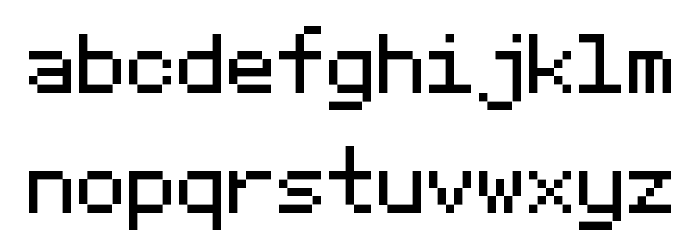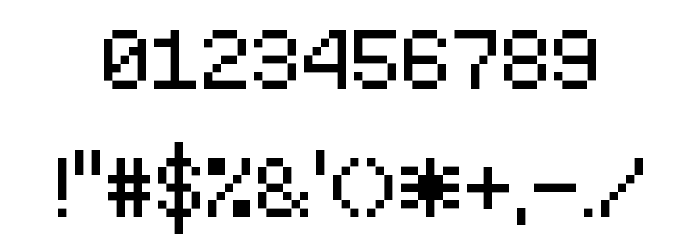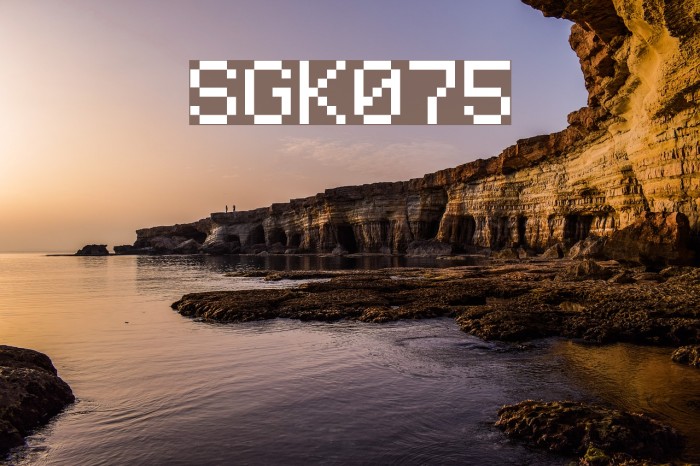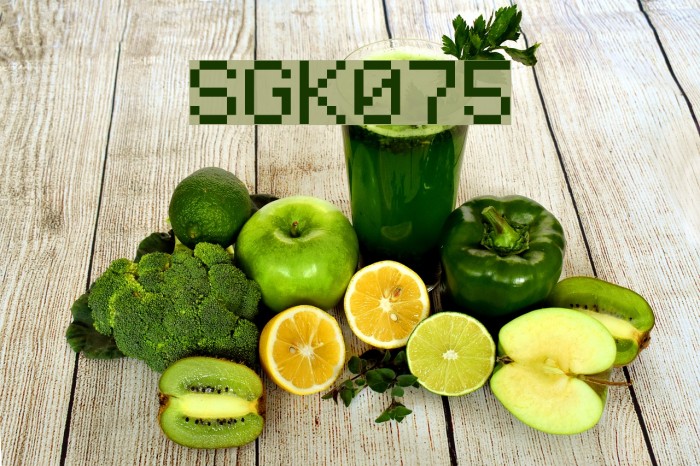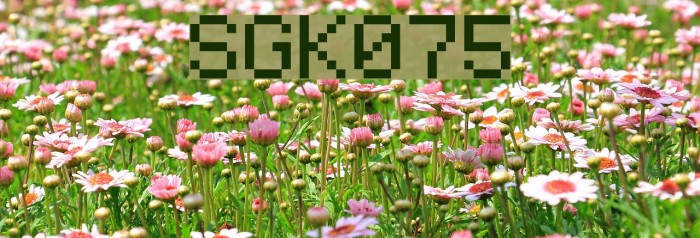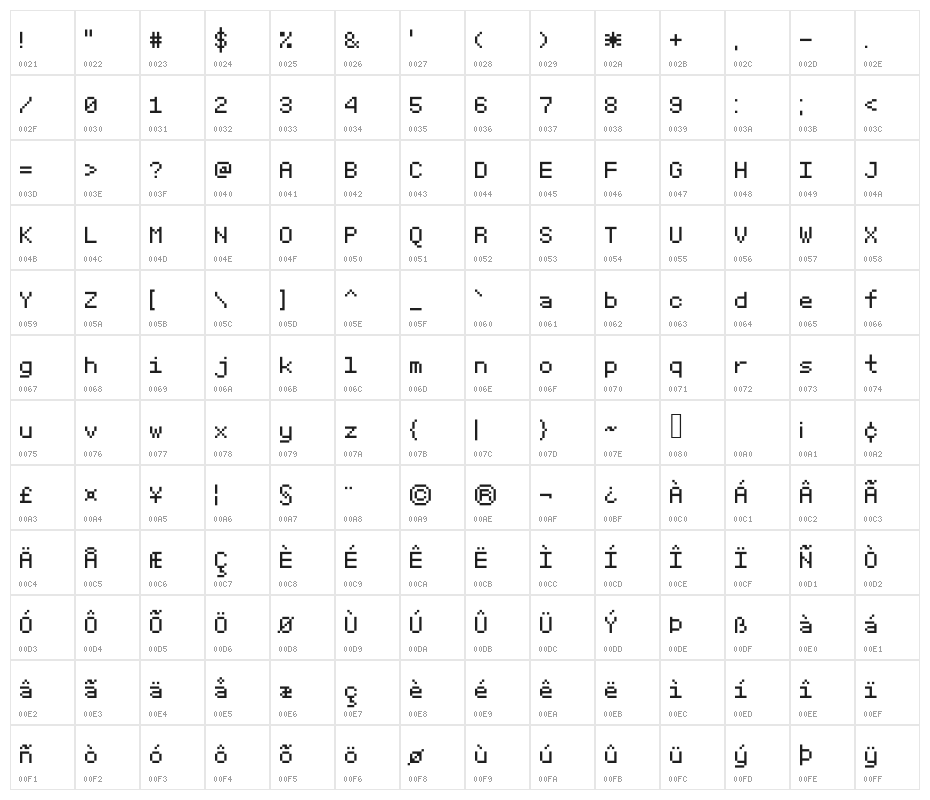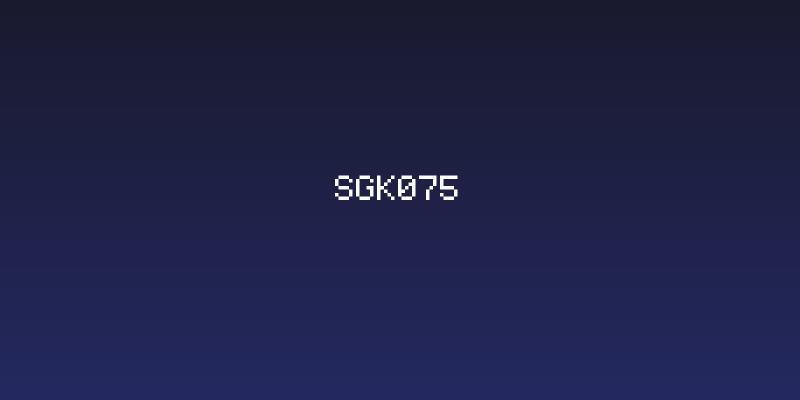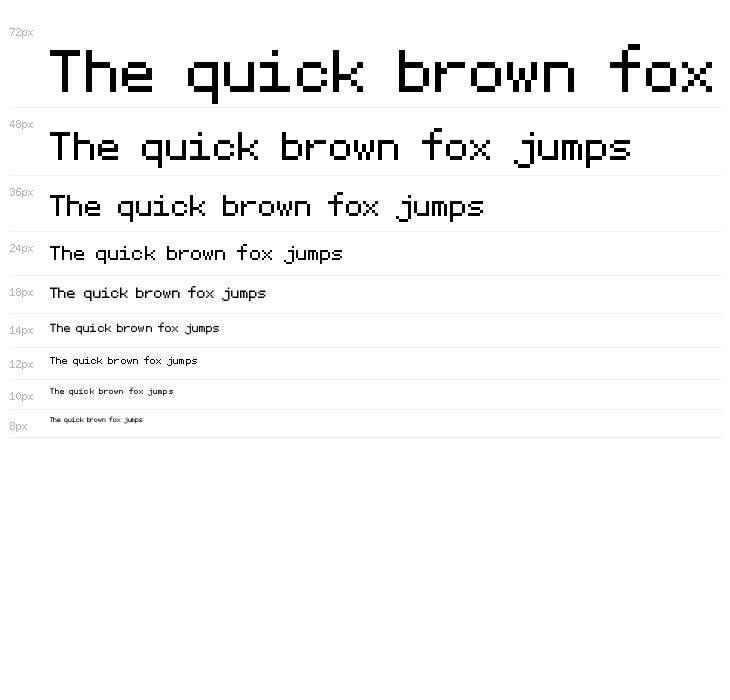
SGK075 Font
This font features a pixelated, blocky design reminiscent of early digital displays and video games. Each character is constructed with a grid-like precision, giving it a distinctly retro and technical appearance. The uppercase and lowercase letters maintain a consistent height, contributing to a uniform look. Numbers and special characters follow the same pixelated style, ensuring cohesion across all glyphs. The font's simplicity and geometric form make it highly legible at various sizes, ideal for digital interfaces or projects seeking a nostalgic touch.
A pixelated, retro-style font with a blocky, grid-like design.
- Proposed Projects: Ideal for retro video games, digital displays, tech-themed posters, and any project requiring a nostalgic digital aesthetic.
- Overall Style: Retro, Digital
- Use Case: Headlines, Logos, Digital interfaces